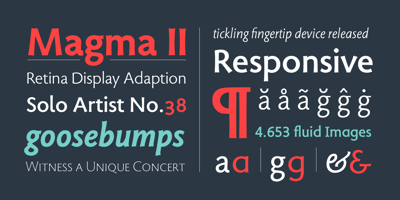
Magma II Font Family was designed by Sumner Stone and published by Stone Type Foundry. Magma II contains 9 styles and family package options. Magma is a rare sans serif typeface family designed explicitly for use in both text and display applications. Starting with this design foundation, Sumner Stone refined the design and added a large suite of international characters to create Magma II, a type family with even more depth and versatility.